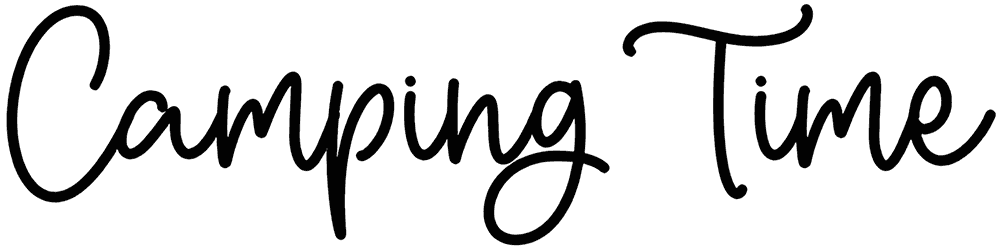
Camping Time Font
Newly, with the reflection of collections that re-enter the classic trends, it will be one step ahead to adorn headers, cards, posters, branding, packaging, or more with the quaint signal of this natural handmade font.